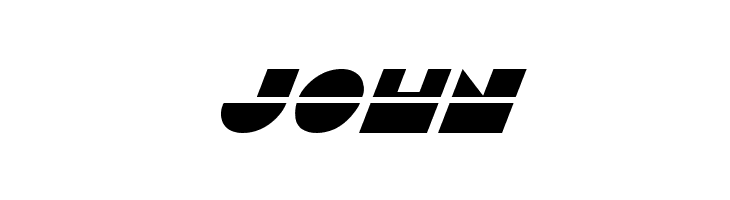
Republika V Cnd Bold Italic Font
- Font: Republika V Cnd Bold Italic
- Weight: Bold Italic
A bold, slanted font with geometric shapes and strong vertical emphasis.